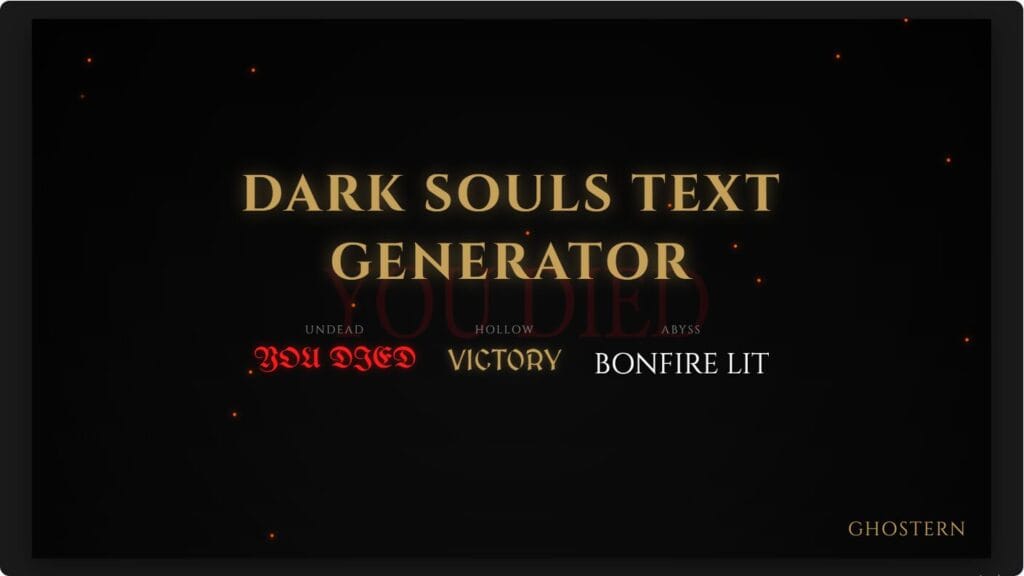
Death is certain in Lordran, but looking good while you fall is entirely up to you. Whether you are a streamer reeling from a boss hitbox or a designer crafting the perfect “You Died” meme, our Dark Souls fontgenerator is here to help. This isn’t just a font changer; it’s a portal to the gothic, dread-filled aesthetic that defined a generation of gaming. Simply type your message, choose a style that screams “dread and authority,” and export it as a high-quality PNG ready for the battlefield—or your Discord server.
How to Use the Dark Souls Text Maker
Creating game-ready typography is easier than parrying the tutorial boss. Just follow these steps to turn plain text into legendary lore.
Enter Your Text
Type your main message—think “YOU DIED,” “VICTORY ACHIEVED,” or something custom like “Praise the Sun.” You can add subtitles for extra flavor.
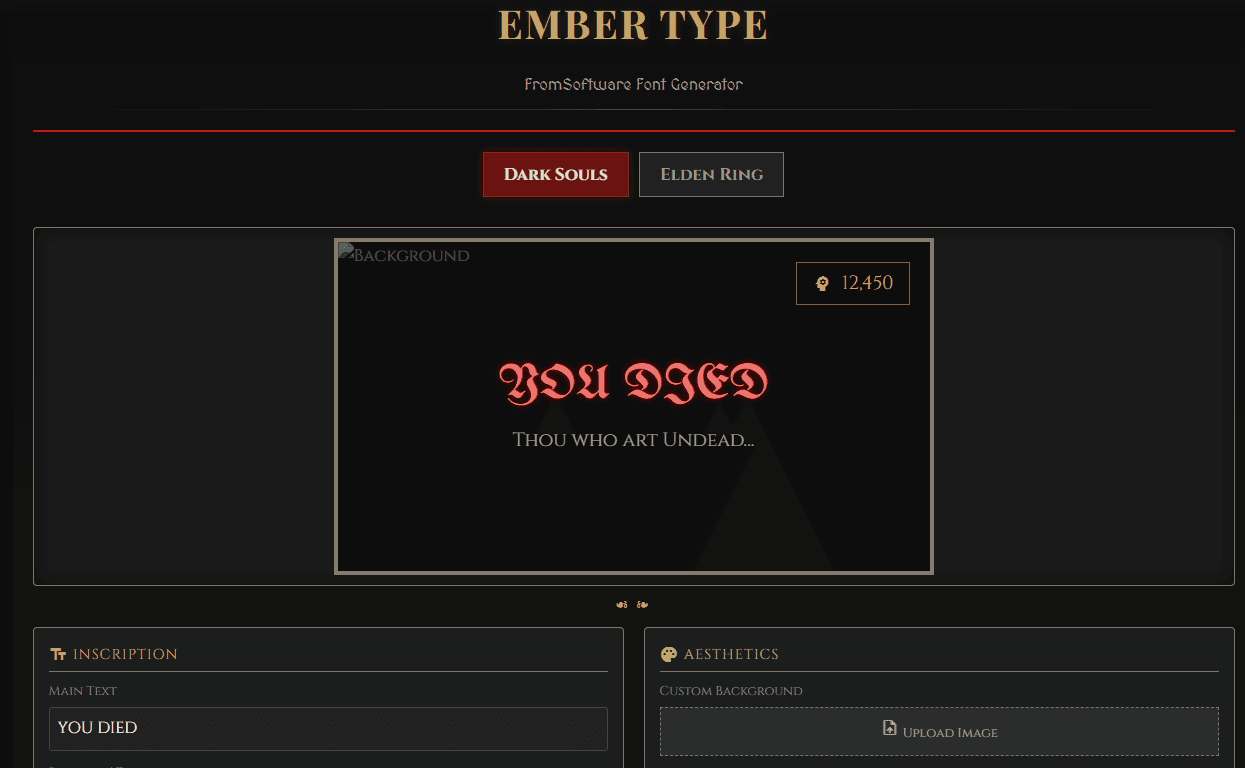
Select Your Style & Effects
Choose a font style that matches your intended mood. Are you looking for the “Hollow” medieval look or the sharp “Abyss” serif? Then, pick a color effect like Blood Red for death screens or Ember Gold for bonfires.
Pick Background & UI
Upload your own boss screenshot or choose from our presets. You can even add UI elements like Soul Counters or Boss Health Bars for that authentic feel.
Generate & Download
Click “Generate Poster” to create your image. The tool handles the rendering, giving you a crisp file ready to download.
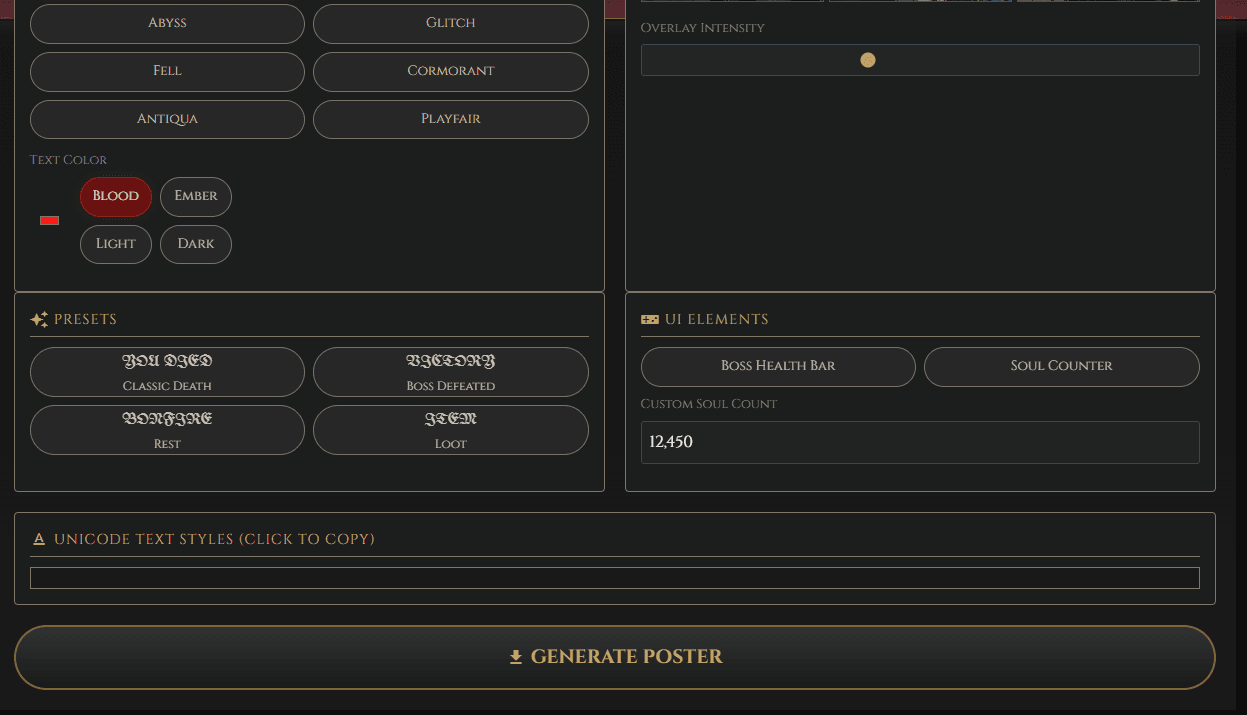
Pro Tip: Want a 4K anime portrait with a Dark Souls theme? Try this prompt in your AI art tool: “Warrior standing before a massive gothic cathedral, ember particles in the air, dramatic lighting, Dark Souls art style.” Then use our generator to add text like “GRAVE WARDEN DEFEATED” with the blood effect for an authentic look.
The History of Dark Souls Typography (Wiki Section)
The distinctive typography in Dark Souls is based on Optimus Princeps, a serif font that draws inspiration from 15th-century Italian inscriptions. This wasn’t an accident by FromSoftware. The font conveys “dread and authority” in every letter, perfectly matching the game’s atmosphere of challenging combat and ancient kingdoms.
What makes Optimus Princeps so perfect for the Dark Souls font online experience is its sharp, angular features. The letters feel heavy, like they were carved into stone centuries ago. This isn’t the clean, modern typography you see in most UIs; it’s deliberate, archaic, and dripping with historical weight. It makes a simple message like “YOU DIED” feel like a judgment from history itself.
Best Use Cases for FromSoft Text
Content Creation
The Dark Souls text generator isn’t just for memes; it’s a utility for creators:
- Twitch Overlays: Create custom alerts for when you die or beat a boss.
- YouTube Thumbnails: Add dramatic text to highlight game moments.
- Discord Servers: Design welcome messages that fans instantly recognize.
Gaming Communities
Streamers can use authentic fonts to announce boss defeats or create “You Died” compilation titles. It helps build a brand around the Soulsborne aesthetic.
Design Projects
Graphic designers can leverage these fonts for fan creations or custom UI designs. The generator supports both Dark Souls and Elden Ring font generator styles, making it versatile for all FromSoftware fans. For broader design inspiration, check out our cool wallpapers collection.
Design Tips and Best Practices
Composition
Center-align your text for that authentic game UI look. Leave adequate margin around the text so it breathes. Consider the rule of thirds when placing text over boss backgrounds.
Color Palettes
Stick to the game’s signature colors:
- Blood Red: #8a0303 (perfect for death screens)
- Ember Gold: #c5a059 (bonfires and victory)
- Deep Black: #050505 (backgrounds)
Aspect Ratios & Zones
- 16:9 (1920×1080): Standard for YouTube.
- 9:16 (1080×1920): Best for TikTok or mobile wallpapers.
- Device-Safe Zones: Keep text in the center 60% of the image so it isn’t covered by phone notches or UI overlays.